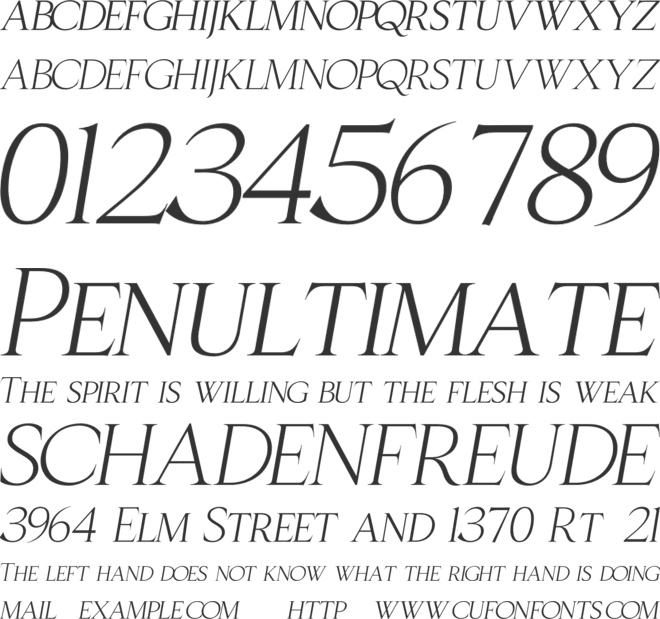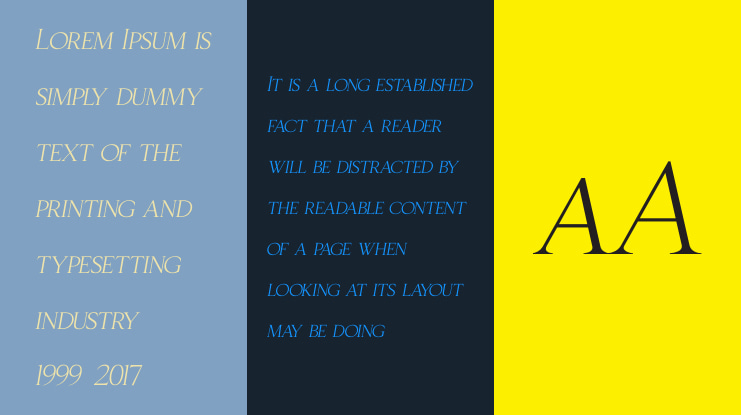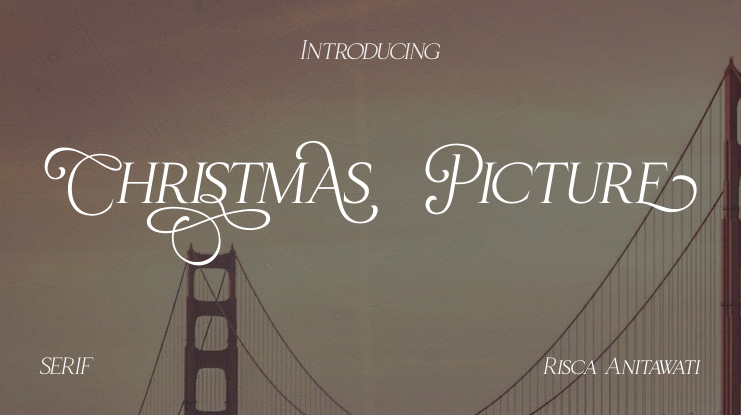
Christmas Picture Font
Introducing the Christmas Picture Typeface! This serif italic font is the perfect choice to bring out the Christmas spirit. Whether you're designing inspiring quotes, logos, web fonts, branding, or product packaging, Christmas Picture is a great option. Plus, it has a PUA encoding, which means accessing all the glyphs is a breeze!
Christmas Picture was created by ReyeyBlue